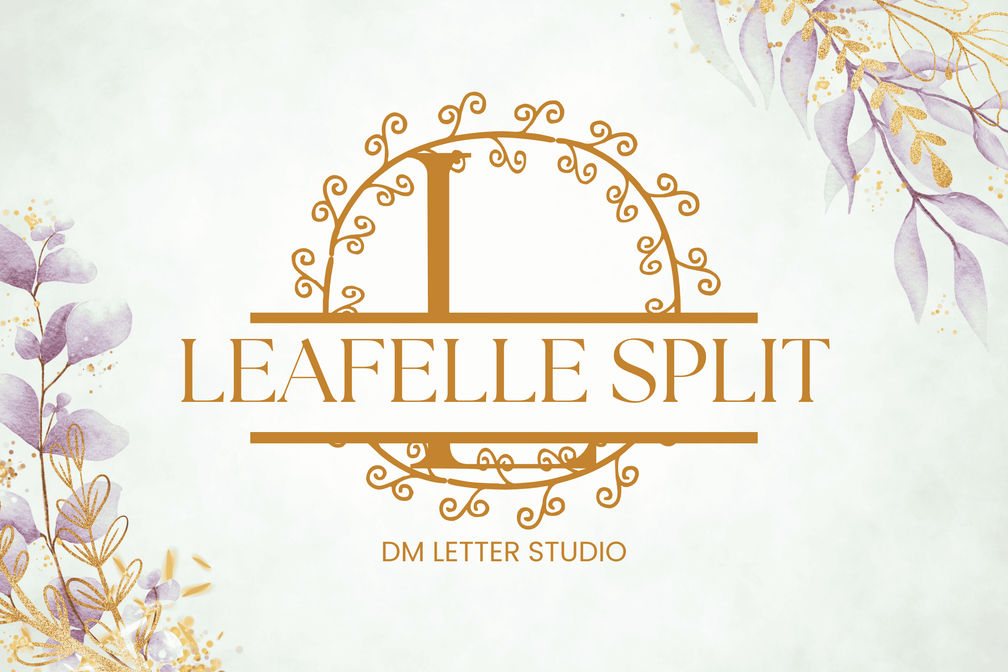
Leafelle Split Monogram
Leafelle Split – Elegant Serif Split Monogram with Whimsical Leaf Details
Leafelle Split is a charming serif split monogram font featuring beautifully balanced letterforms and whimsical leaf accents. Each uppercase letter includes a graceful horizontal divide, creating space for custom names, initials, or meaningful words—ideal for personalized crafts, wedding signage, and DIY gifts. The botanical flourishes add a soft, organic touch to your design.
• Split Monogram Style: Refined serif letters with a horizontal break for effortless personalization.
• Botanical Accents: Gentle leafy motifs bring a sense of whimsy and nature to every initial.